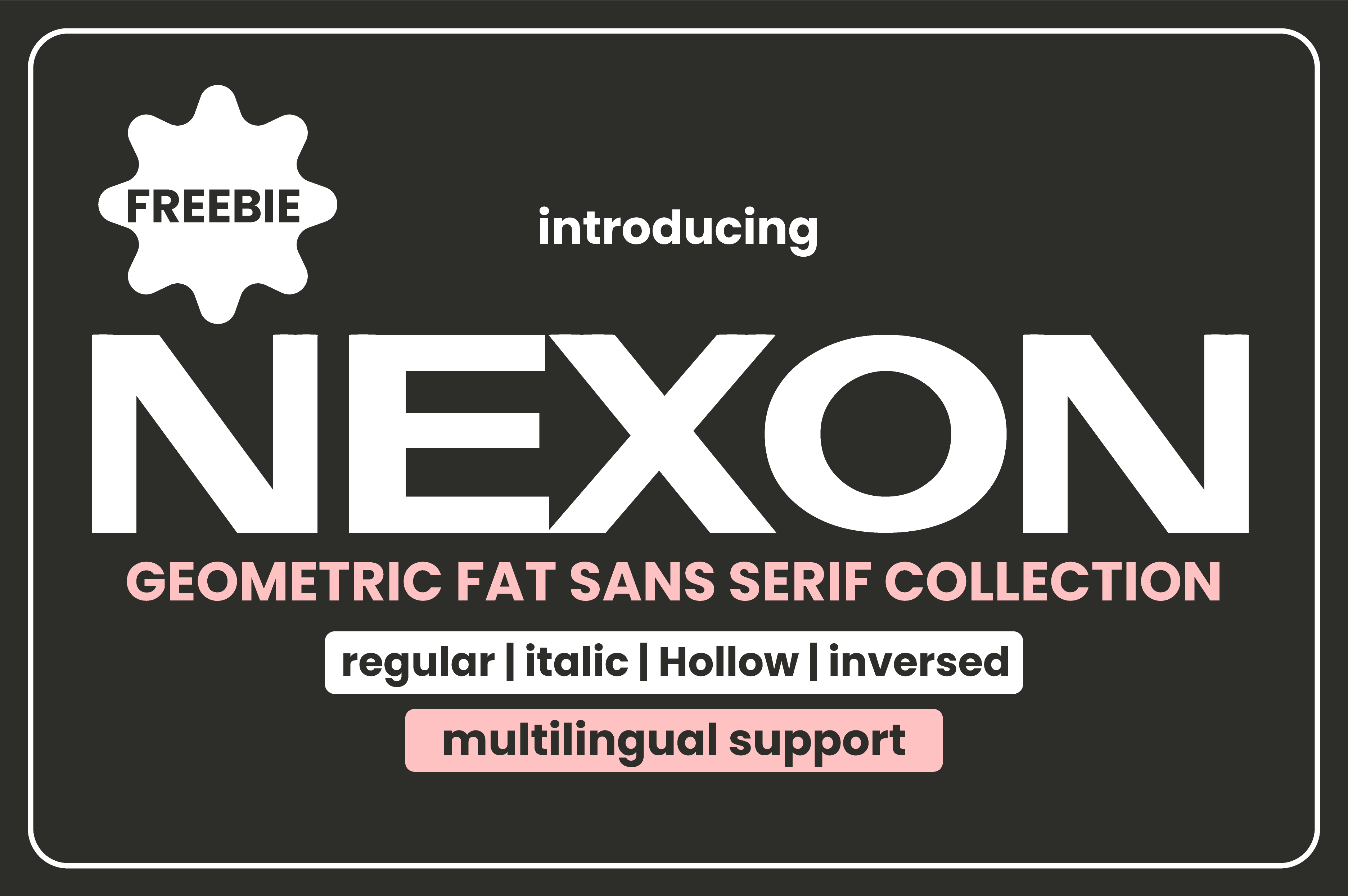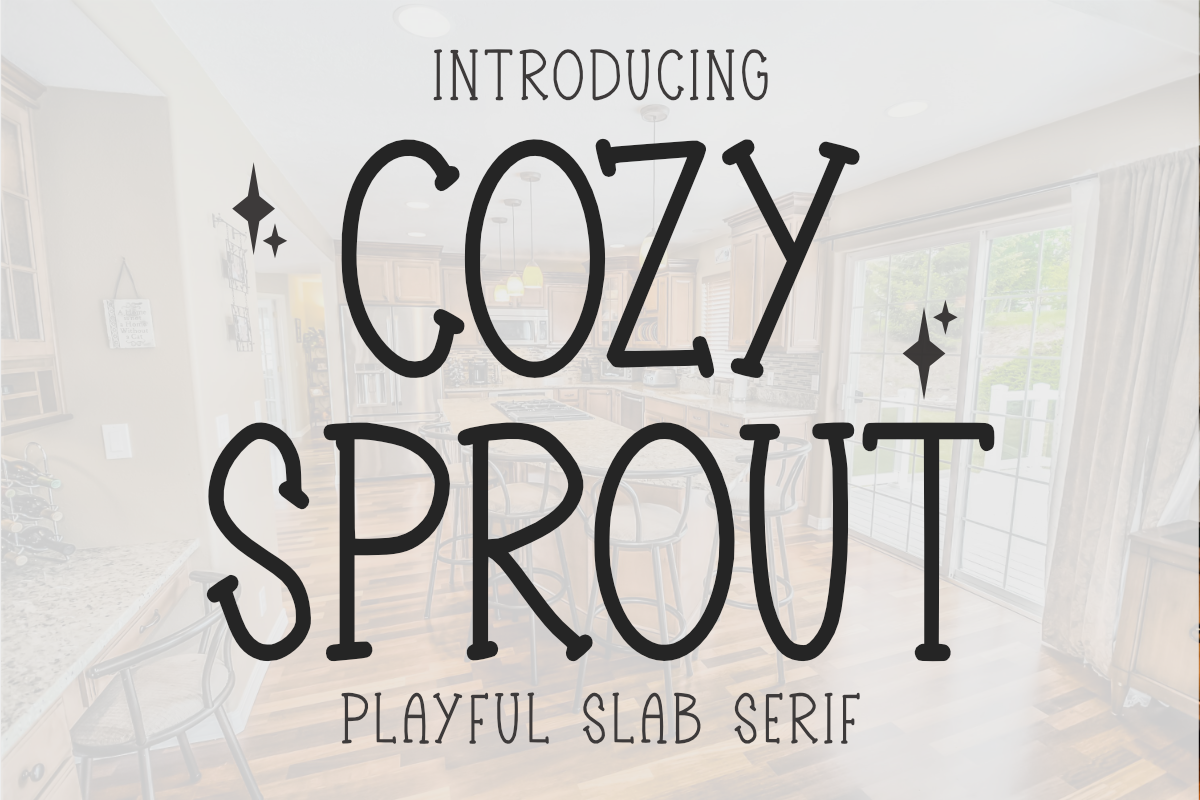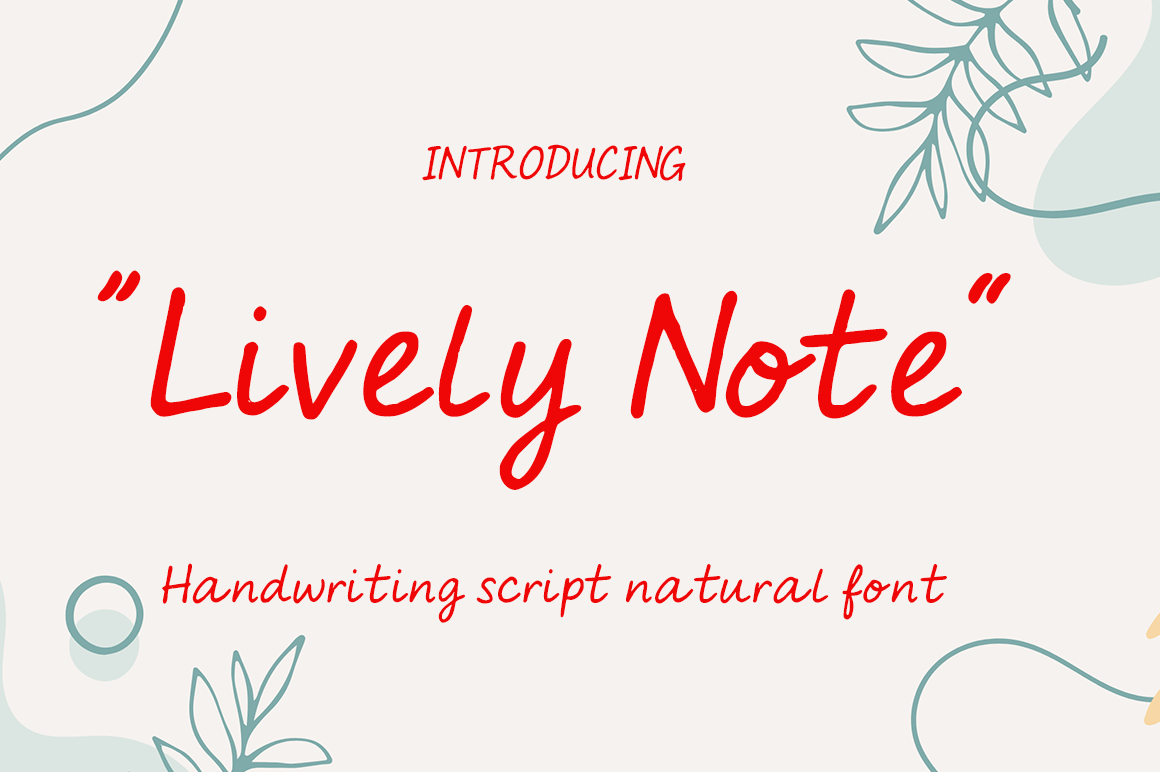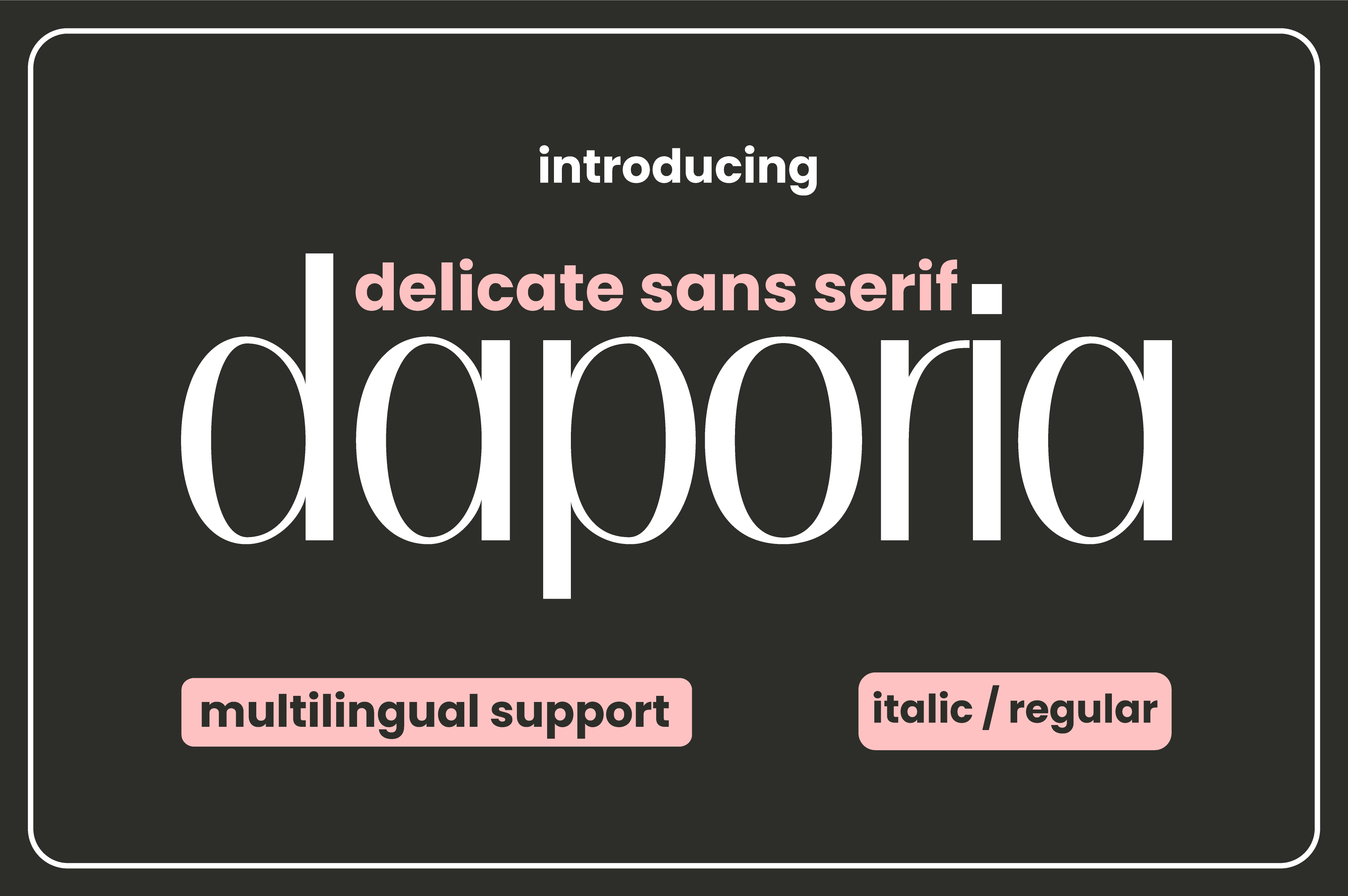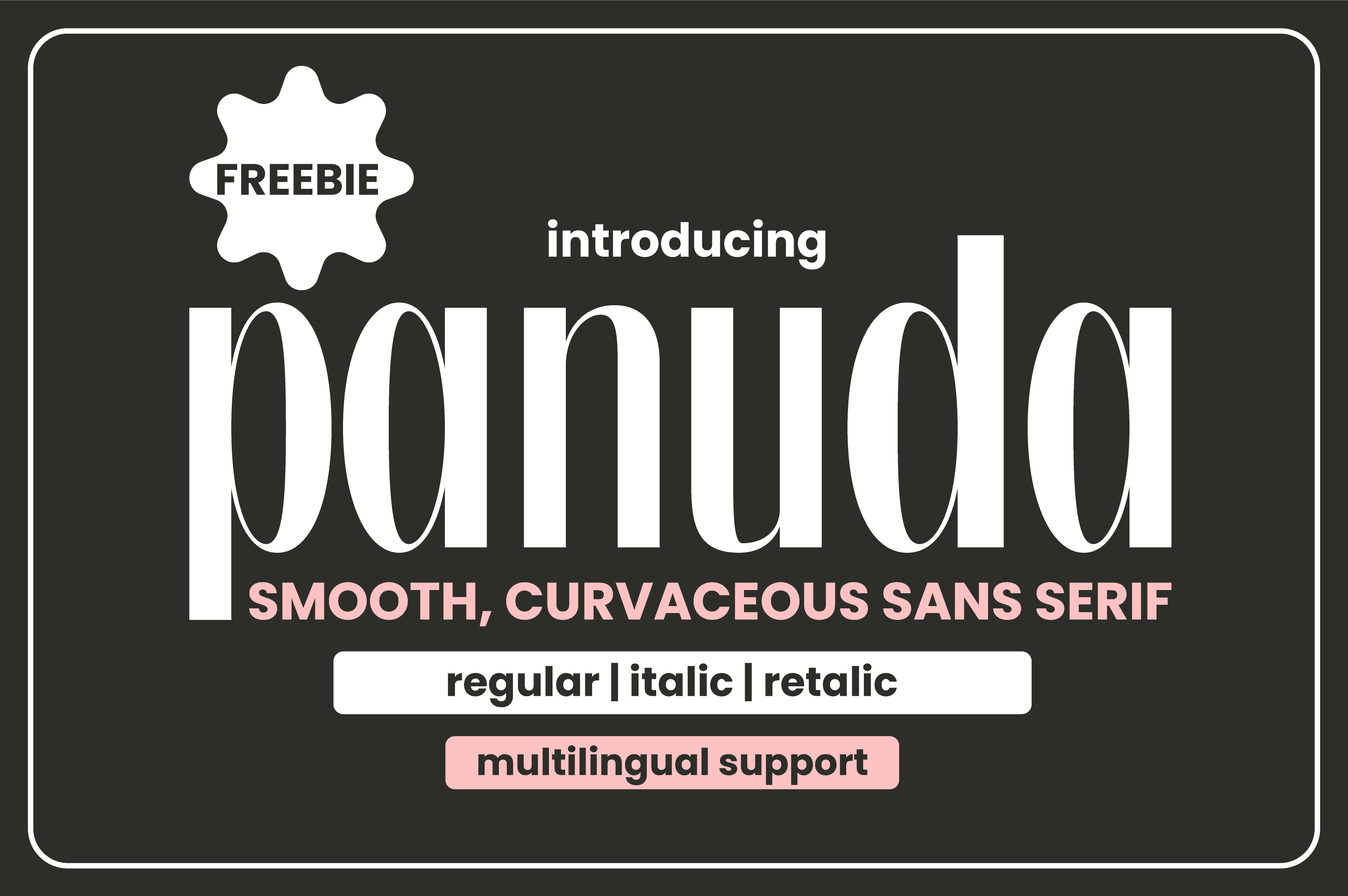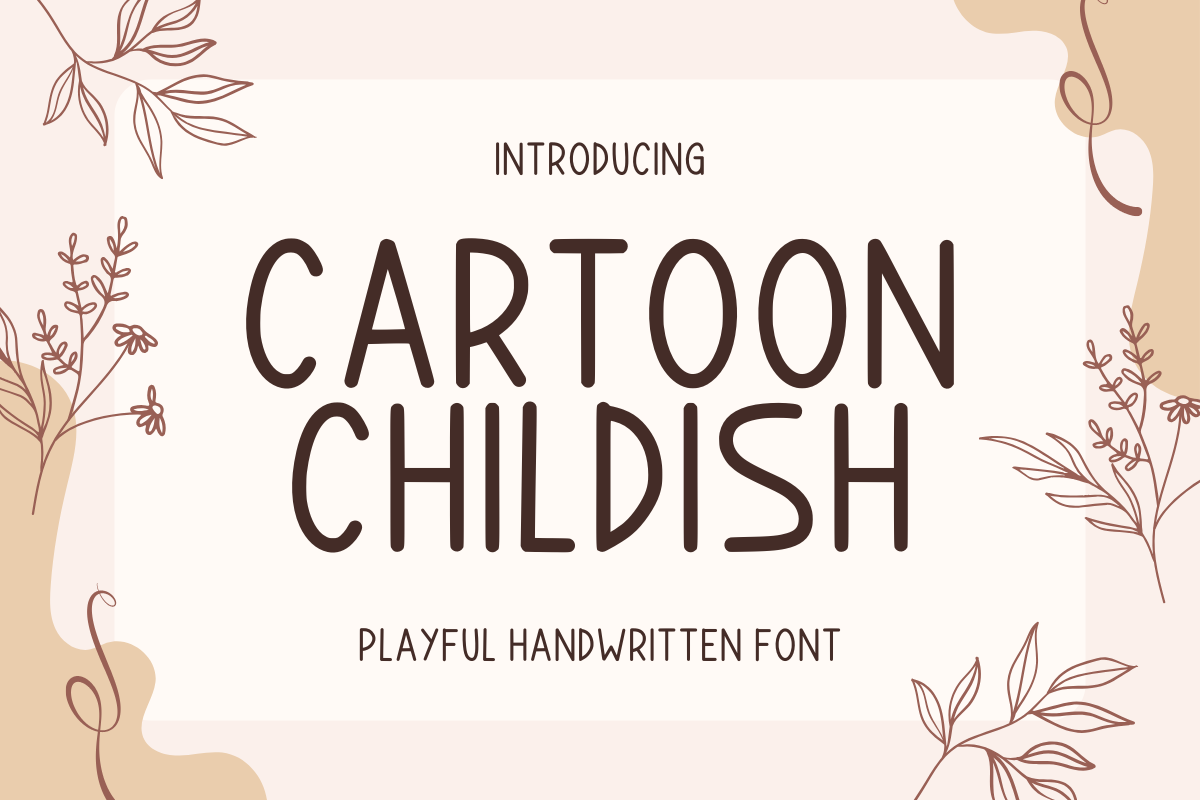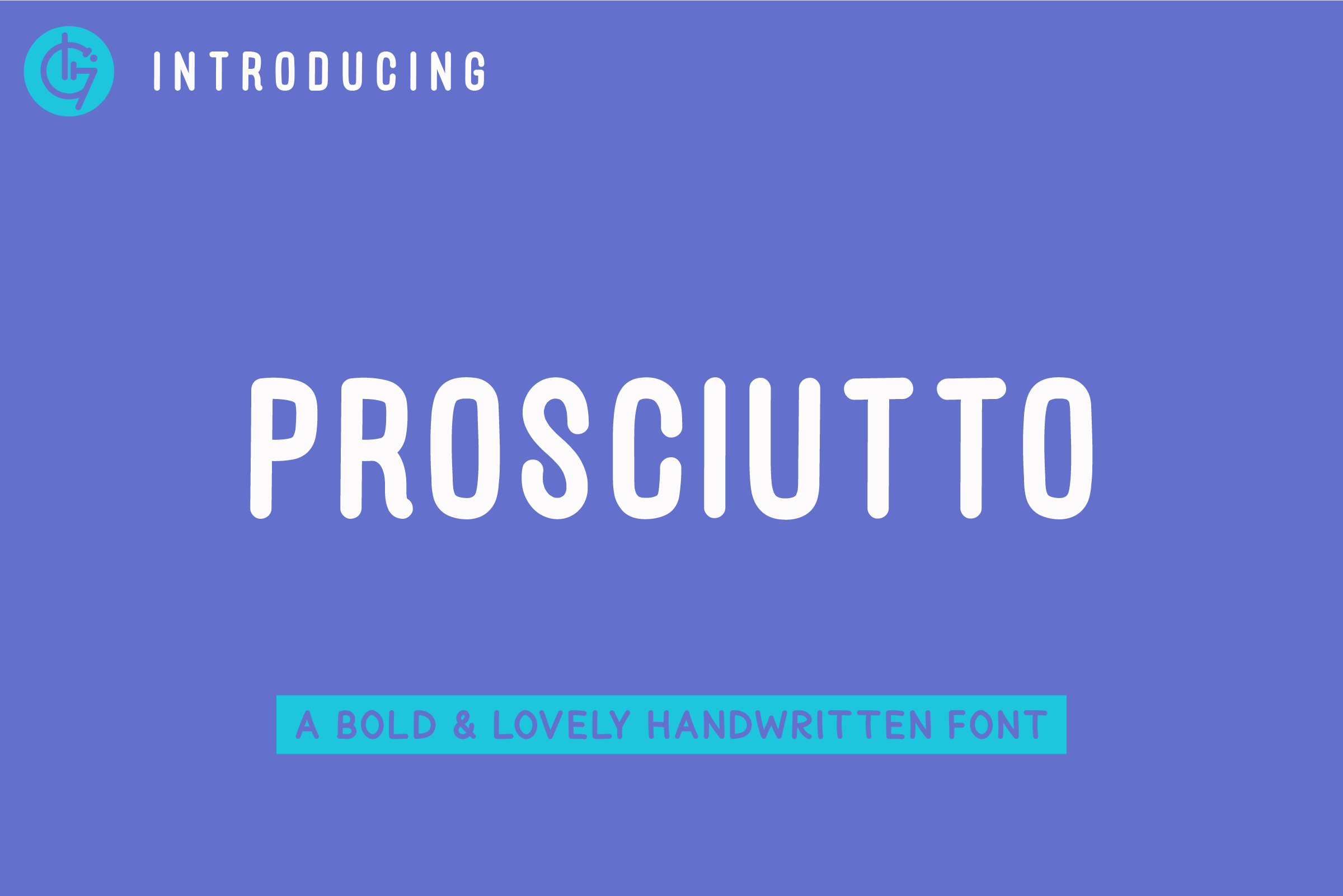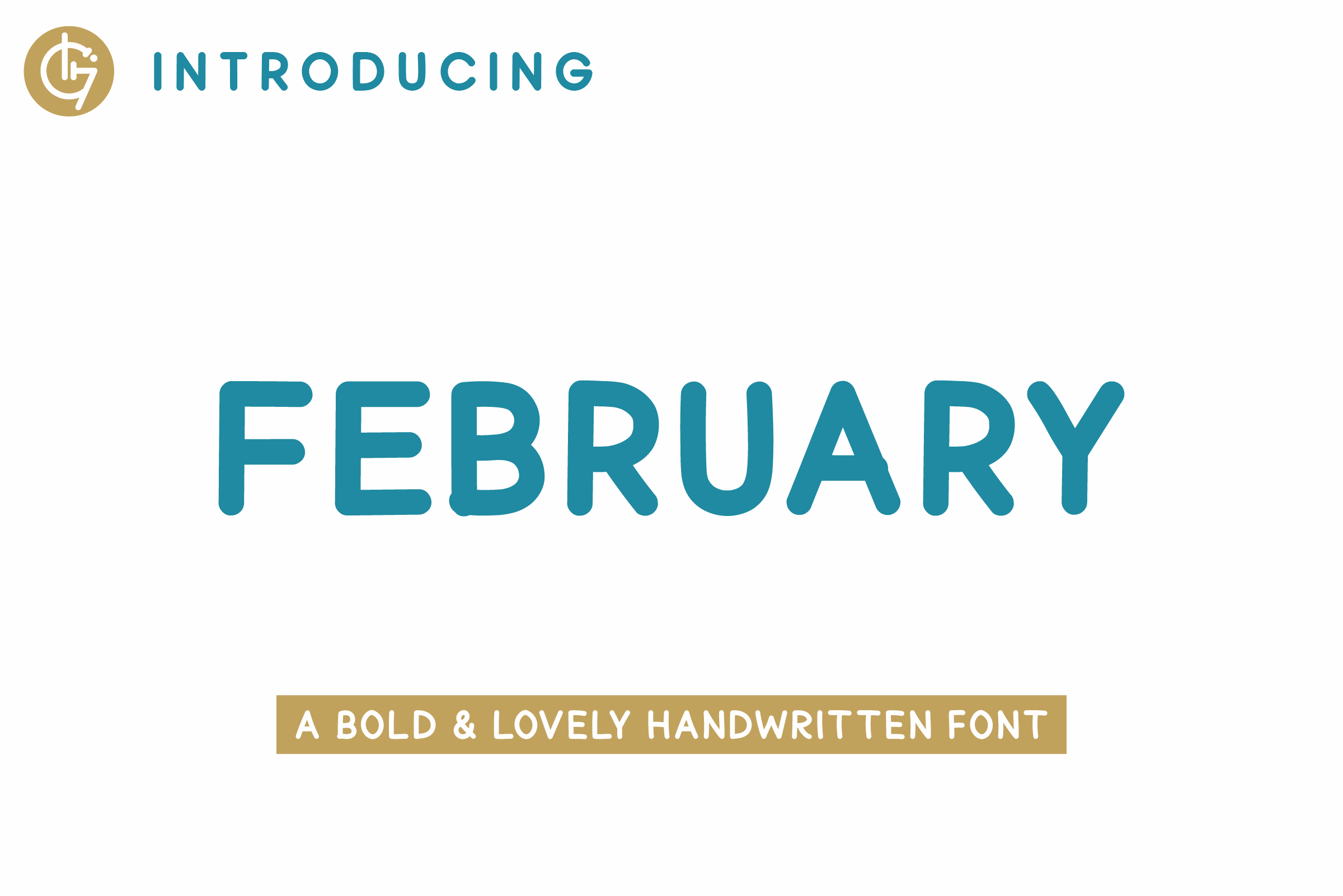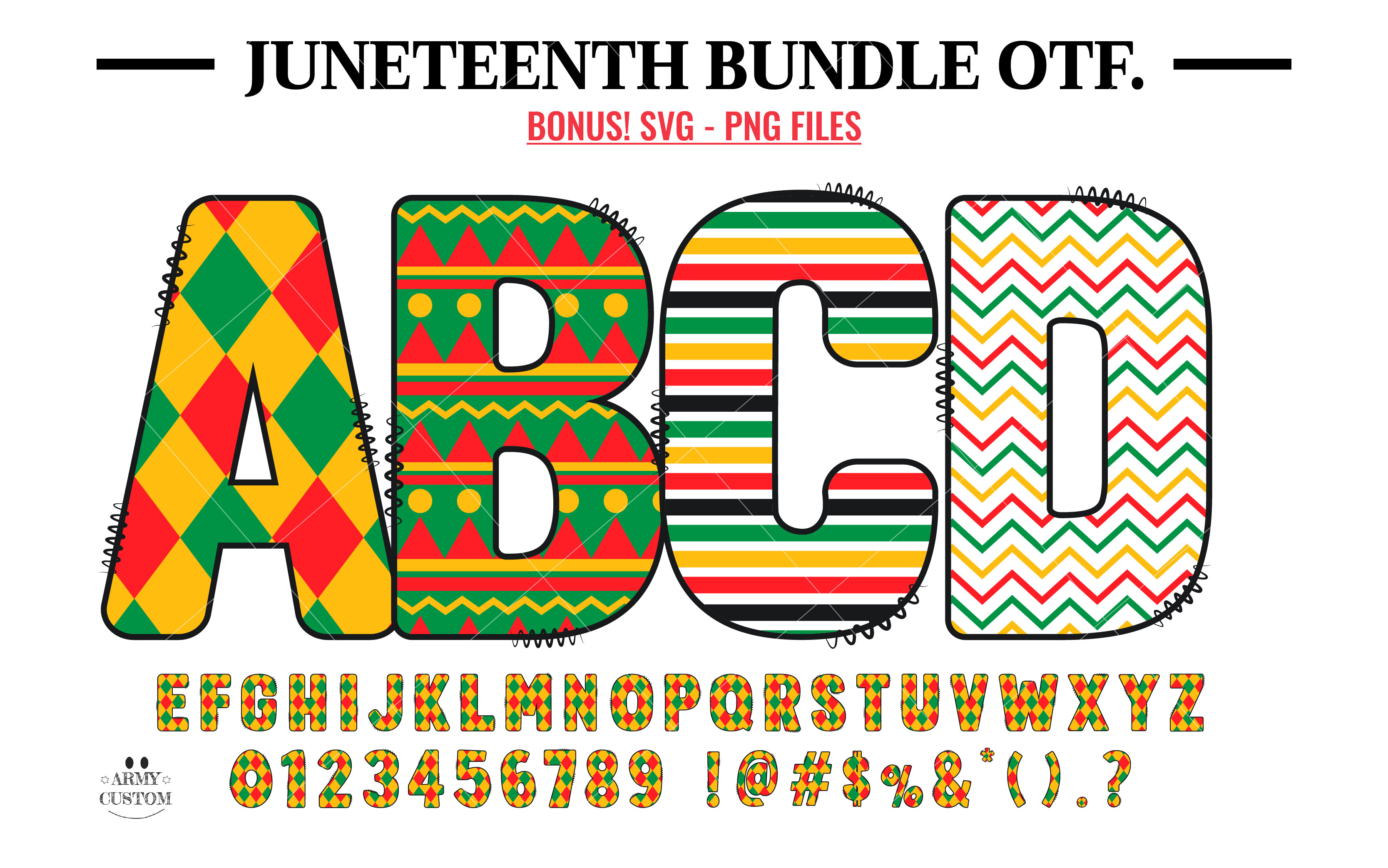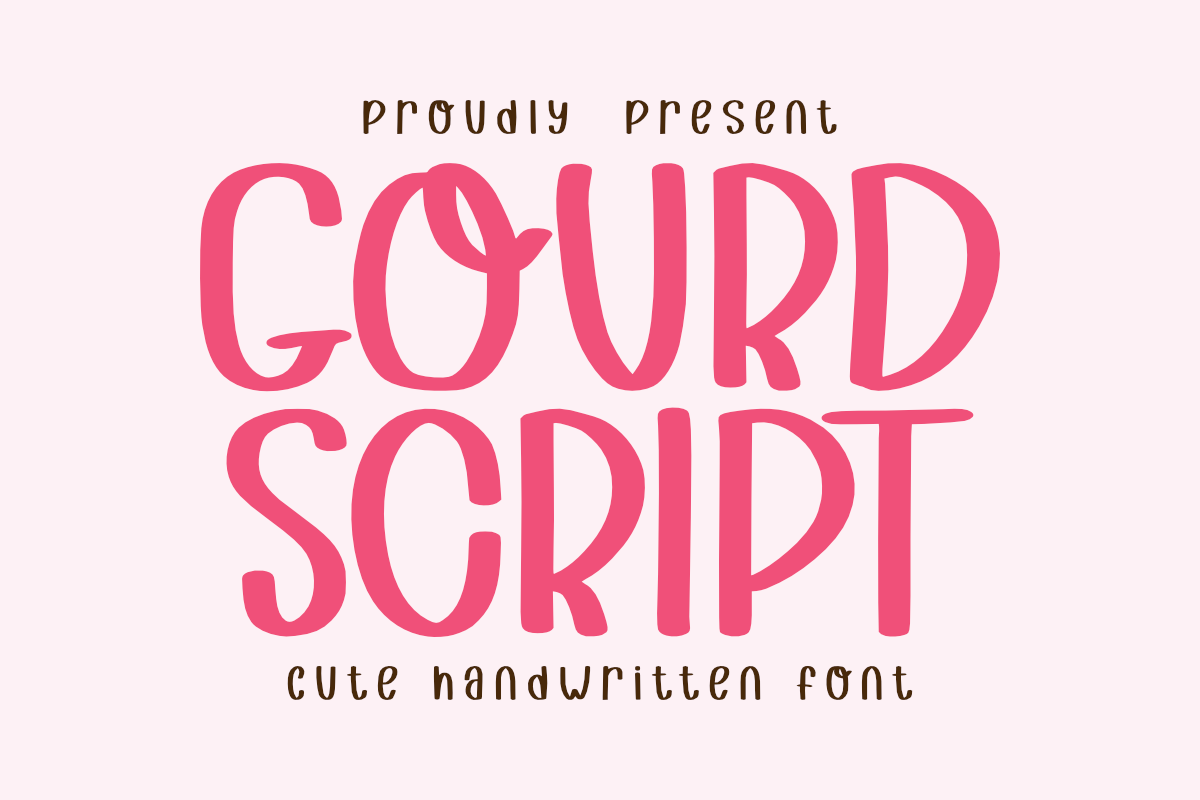
Welcome to Free Fonts Friday! This week, we’re excited to showcase a collection of ten unique free fonts that are perfect for your creative projects. Whether you’re crafting invitations, designing logos, or working on personal and commercial projects, these fonts will elevate your designs and make them stand out. From the clean lines of Nexon to the whimsical curves of Gourd Script, each font offers a distinct character that can add charm and professionalism to your work. Let’s dive into these remarkable fonts that are available for free for commercial use and find the perfect match for your next design endeavor!
Nexon
Nexon is a versatile sans-serif typeface family that offers four distinct styles: Regular, Italic, Hollow, and Reversed. Its geometric design and clean lines make it an excellent choice for a variety of projects, from packaging and branding to web design. The bold yet refined appearance of Nexon ensures that your designs will stand out while maintaining professionalism. Ideal for logos and artworks, this font suite combines modern aesthetics with functionality, allowing you to create eye-catching visuals. Use Nexon to elevate your creative endeavors and leave a lasting impression.
Cozy Sprout
Cozy Sprout is a delightful font that adds a touch of playfulness to any creative project. This handwritten typeface shines in applications like crafts, planners, greeting cards, and stickers, making it the perfect choice for DIY enthusiasts. Its friendly and inviting design works wonderfully with Cricut and sublimation projects, allowing users to create personalized items effortlessly. Ideal for crafters and designers alike, Cozy Sprout brings a whimsical charm that resonates with audiences, making it a versatile addition to your font collection. Elevate your creativity with this charming typeface today!
Lively Note
Lively Note is a beautifully crafted handwritten font that captures the essence of personal expression. With its fluid lines and warm character forms, it resembles the unique touch of handwriting found in cherished journals. This font brings an emotional connection to your text, making it perfect for storytelling and personal projects. Whether used for invitations, greeting cards, or personal blogs, Lively Note adds a layer of charm and intimacy that elevates your designs. This font is not just letters; it is a means to convey feelings and memories, making each word resonate.
Daporia
Daporia is a sophisticated sans-serif font that embodies elegance and minimalism. Its clean lines and graceful letterforms make it an exceptional choice for a wide array of design projects, from branding to editorial layouts. The font's versatility allows it to adapt effortlessly to both modern and classic aesthetics, adding a refined touch to invitations, logos, and more. Daporia’s timeless appeal and understated charm ensure that your designs will convey professionalism and style, making it a must-have in your font library. Elevate your design work with the exquisite beauty of Daporia.
Panuda
Panuda is a captivating sans-serif font family that stands out with its three unique styles: Regular, Italic, and the dynamic Retalic (Reversed Italic). Each variant features smooth, flowing lines and generous letter spacing, ensuring readability and visual appeal. This font is perfect for a variety of applications, including eye-catching titles, elegant logos, and stunning invitations. With its blend of sophistication and accessibility, Panuda caters to both contemporary and traditional design aesthetics. Transform your projects with this versatile typeface that effortlessly combines charm and functionality.
Cartoon Childish
Cartoon Childish is an enchanting handwritten font that injects a sense of fun and creativity into your projects. Perfect for use in crafting, planners, greeting cards, and stickers, its charming design appeals to both children and adults alike. This font works seamlessly with Cricut and sublimation, making it a fantastic choice for DIY creators and designers. With its playful style, Cartoon Childish can transform everyday items into delightful keepsakes. Embrace your creativity and let this whimsical typeface add a touch of joy to your work.
Prosciutto
Prosciutto is a captivating handwritten font that exudes both boldness and charm. It’s designed to make a memorable impact, perfect for branding, packaging, social media, and print materials. The unique style of Prosciutto adds warmth and authenticity, giving your designs a personal touch. Its strong presence enhances your visual storytelling, making it ideal for projects that require a friendly yet professional aesthetic. Elevate your designs with this inviting typeface that brings a touch of character and style to any application.
February
February is a warm and inviting handwritten font that combines boldness with a personal touch. It’s perfect for a wide range of applications including branding, packaging, and social media. The unique style of February adds a sense of authenticity and warmth to your designs, making it an excellent choice for projects that require a friendly yet professional aesthetic. Achieving a balance between charm and professionalism, this font is ideal for creating memorable impressions in print and digital media.
Juneteenth
Juneteenth is a powerful font that embodies the spirit of freedom and resilience, celebrating the rich history of African American culture. With bold strokes and expressive nuances, this font serves as a visual narrative of strength and triumph. Perfect for commemorative designs, branding, and storytelling, it allows you to create impactful visuals that resonate deeply. The font is compatible with various design tools, making it a versatile asset for your creative projects. Use Juneteenth to honor history while crafting designs that inspire and uplift.